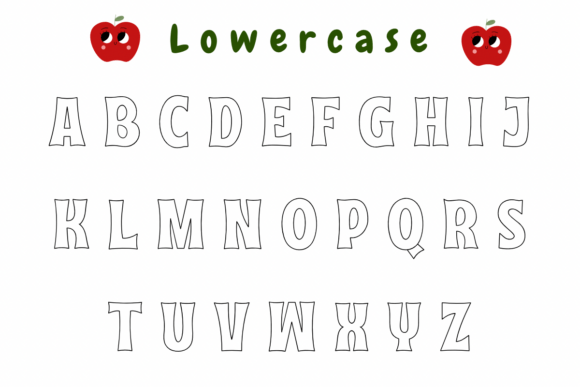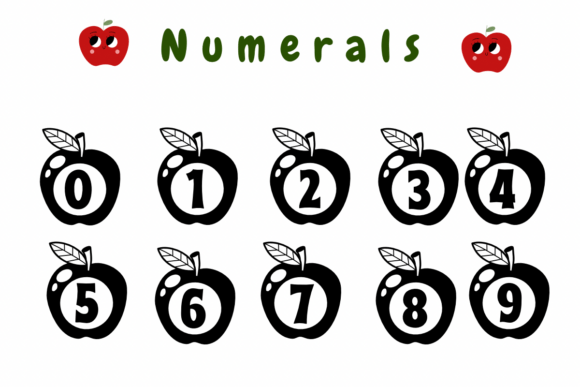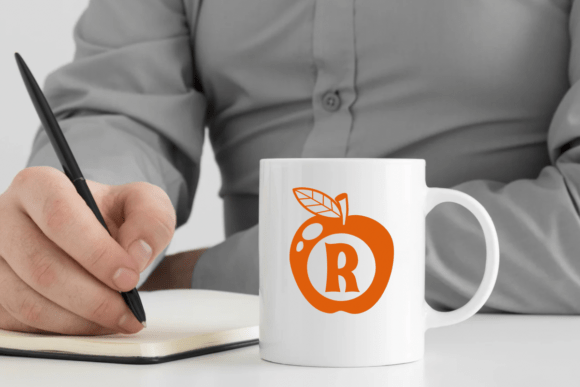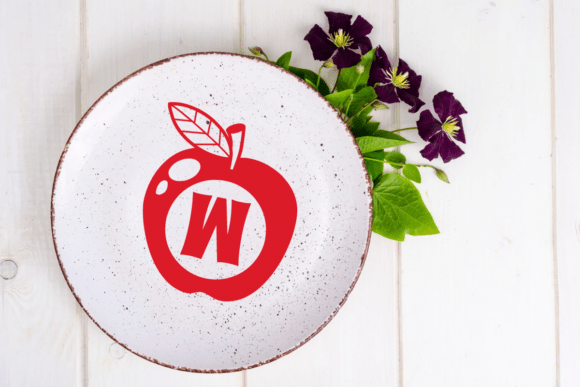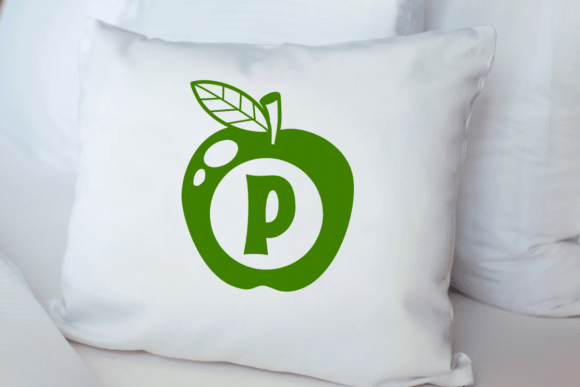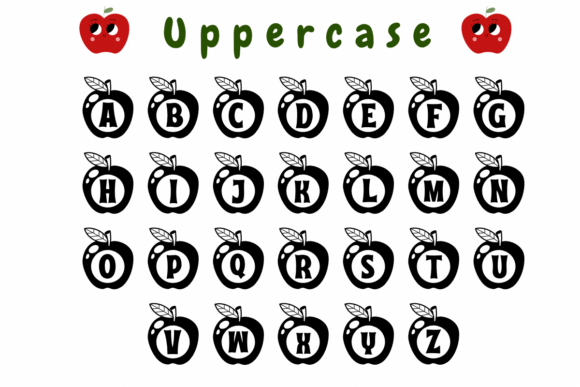
Introducing Apple Font: The Playful and Adorable Decorative Font for Your Creative Projects
Are you looking for a font that adds a sweet and cheerful touch to your creative projects? Look no further than Apple Font, a playful and adorable decorative font that’s perfect for designers, crafters, and educators. With its rounded, bubbly letterforms and apple-themed illustrations, Apple Font is sure to bring a smile to your face and charm to your work.
Perfect for Kids’ Books, Classroom Decor, and More
Apple Font is a versatile font that’s suitable for a wide range of creative projects. Its friendly, bold style makes it especially great for kids’ books, classroom decor, posters, logos, crafts, packaging, and more. Whether you’re designing for a fall harvest event or a playful brand identity, Apple Font is the perfect choice.
For educators, Apple Font is a great addition to your teaching resources. You can use it to create engaging and interactive learning materials, such as alphabet charts, number lines, and educational posters. The font’s playful style will surely capture the attention of your students and make learning fun.
Features and Benefits of Apple Font
So, what makes Apple Font so special? Here are some of its key features and benefits:
- Rounded and bubbly letterforms: Apple Font features rounded, bubbly letterforms that give it a playful and cheerful feel.
- Apple-themed illustrations: The font includes apple-themed illustrations that add a touch of whimsy and charm to your designs.
- Friend and bold style: Apple Font’s friendly, bold style makes it perfect for designs that need to stand out and grab attention.
- Versatile and flexible: Apple Font is suitable for a wide range of creative projects, from kids’ books to logos and packaging.
How to Use Apple Font in Your Designs
Using Apple Font in your designs is easy and fun. Here are some ideas to get you started:
- Kids’ books: Use Apple Font to create engaging and interactive kids’ books that feature apple-themed stories and illustrations.
- Classroom decor: Create educational posters, alphabet charts, and number lines using Apple Font to add a playful touch to your classroom decor.
- Posters and flyers: Use Apple Font to create eye-catching posters and flyers for fall harvest events, farmers’ markets, or other apple-themed events.
- Logos and branding: Create a playful and memorable brand identity using Apple Font for your business or product.
- Crafts and packaging: Use Apple Font to add a personal touch to your crafts and packaging, such as apple-themed gift tags, labels, and stickers.
Tips and Tricks for Getting the Most Out of Apple Font
Here are some tips and tricks to help you get the most out of Apple Font:
- Experiment with colors: Apple Font looks great in bright and bold colors, so don’t be afraid to experiment and find the perfect color scheme for your design.
- Mix and match: Combine Apple Font with other fonts and graphics to create a unique and eye-catching design.
- Use it sparingly: While Apple Font is playful and fun, it can be overwhelming if used too much. Use it sparingly to add a touch of whimsy to your design.
In conclusion, Apple Font is a playful and adorable decorative font that’s perfect for designers, crafters, and educators. With its rounded, bubbly letterforms and apple-themed illustrations, Apple Font adds a sweet and cheerful touch to any creative project. Whether you’re designing for a fall harvest event or a playful brand identity, Apple Font brings charm and personality to your work. So why not give it a try and see how it can elevate your designs?